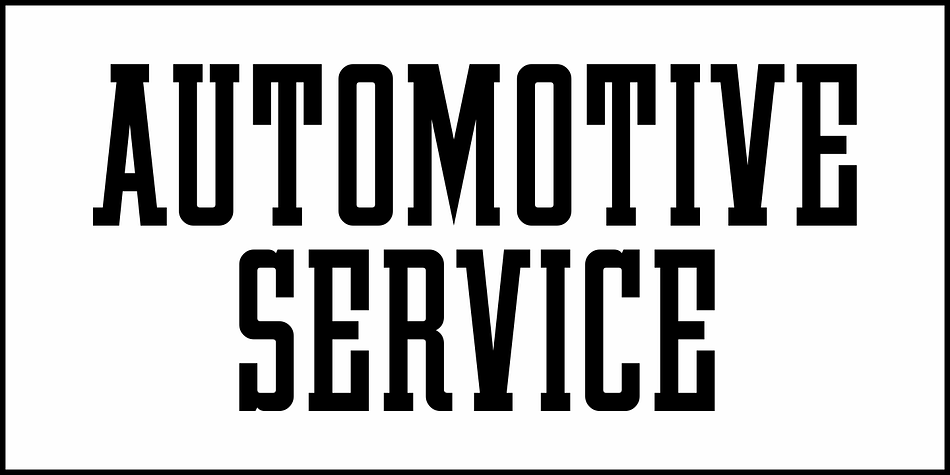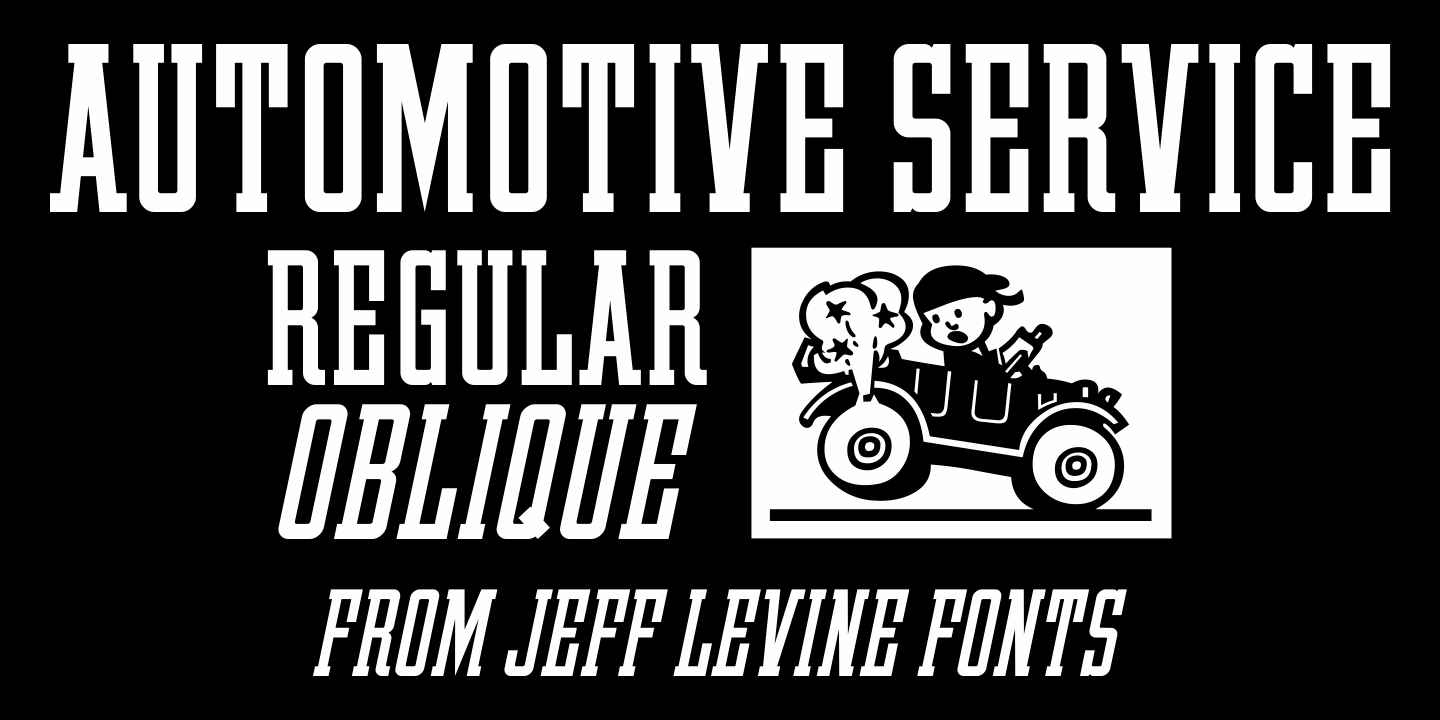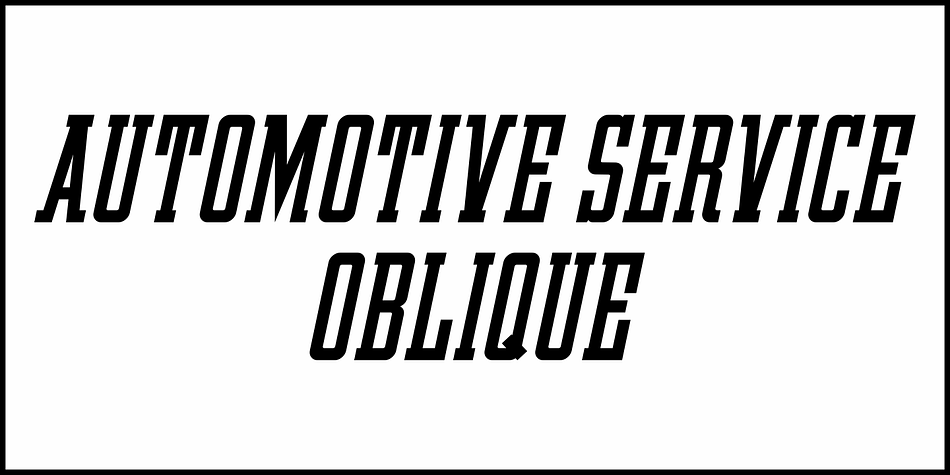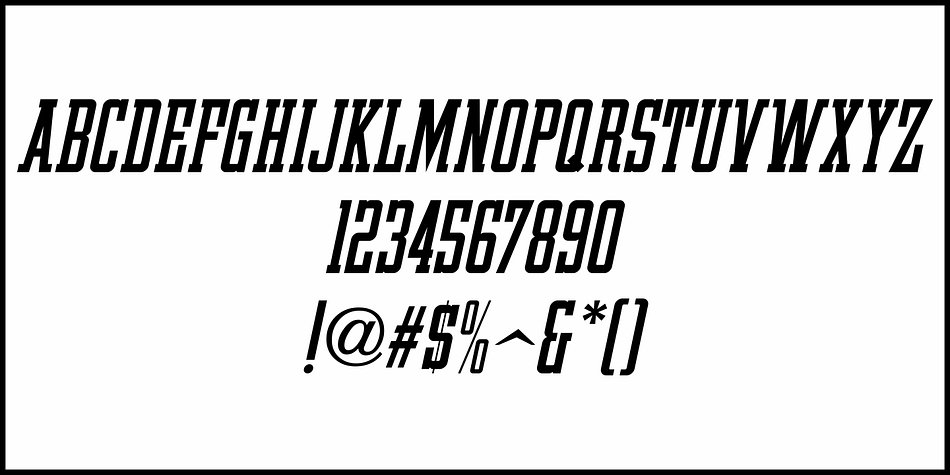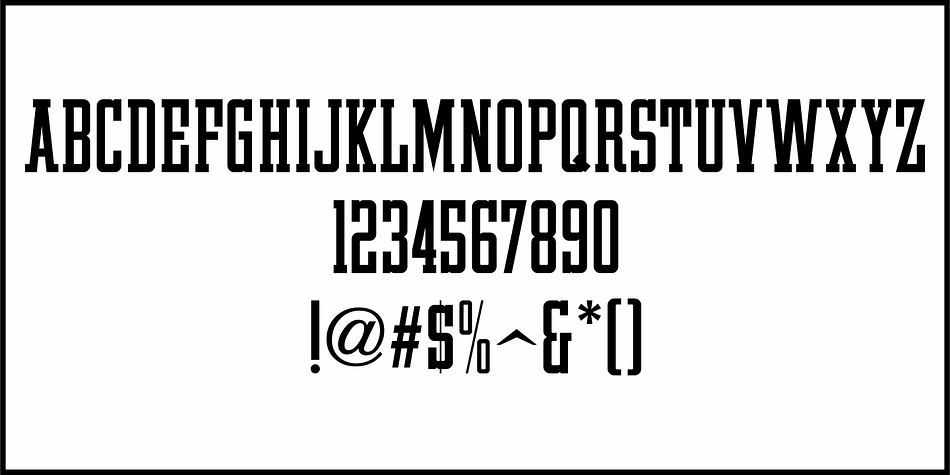
AUTOMOTIVE SERVICE JNL
Designed by Jeff Levine, Automotive Service JNL is a display slab font family. This typeface has two styles and was published by Jeff Levine Fonts.
A 1930s print ad for Miller Tires featured lettering in a condensed slab serif design.
This provided a design model for the digital typeface Automotive Service JNL, which is available in both regular and oblique versions.